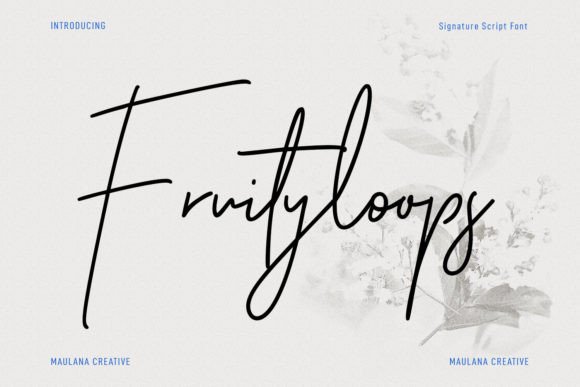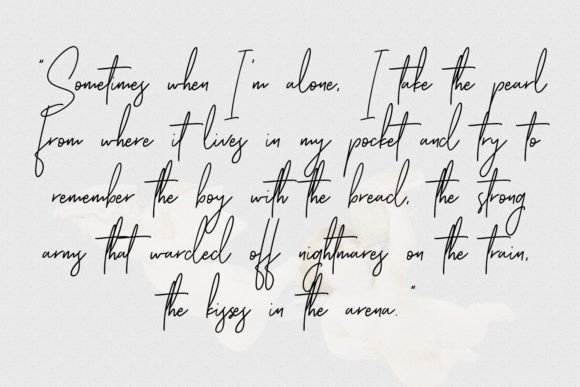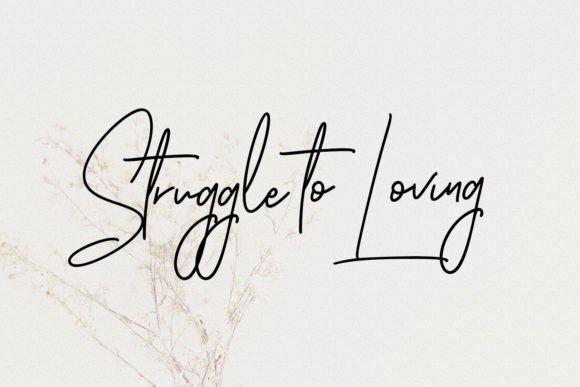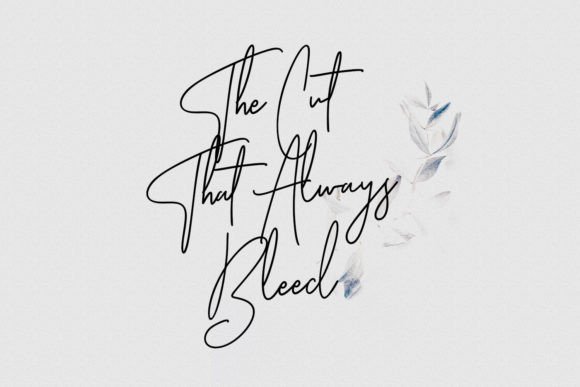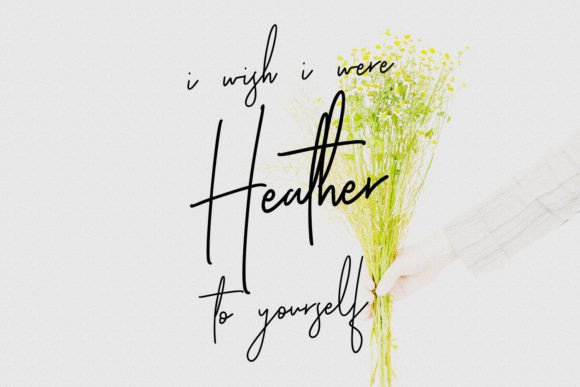
Fruityloops Font
About Fruityloops Font
Fruityloops is a modern tall script font. It has a classy, elegant, and modern look that can be used for logos, branding, invitations, stationery, wedding designs, social media posts, and much more!